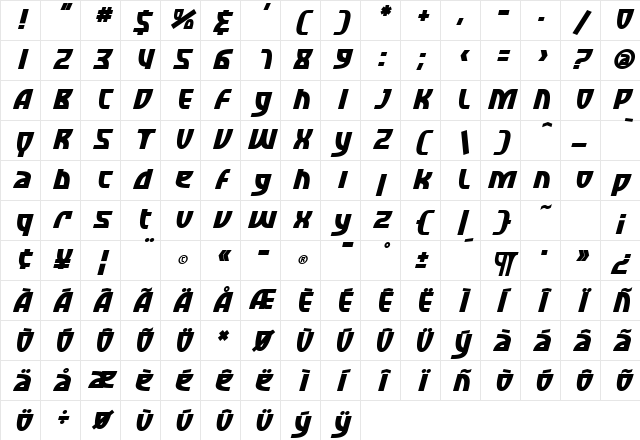
SF Retroesque Bold Italic Free Font
SF Retroesque Bold Italic
SF Retroesque Family
Complete SF Retroesque Bold Italic glyph index. Displaying only characters natively supported by SF Retroesque Bold Italic font.
Design Context for SF Retroesque
SF Retroesque wears its vintage influences proudly, with letterforms that recall mid-century signage, classic packaging, and nostalgia-driven design. The slanted form adds forward momentum and visual energy. Its bold stroke weight gives it real presence on the page.